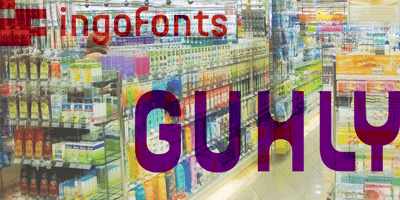
Guhly
Guhly font
Guhly Font Family was designed by Ingo Zimmermann and published by Ingo. Guhly contains 6 styles and family package options. A modern Sans Serif — prosaic, designed geometrically, beautiful in large sizesAll the dimensions of the font are based on Factor 10. The general principle of construction leads to slim forms and nearly equally wide characters. So the font appears very solid but is actually difficult to decipher in longer texts.Along with the ”normal“ Guhly Regular there are also the two versions Guhly Light and Guhly Bold, whereas in each only the vertical strokes [Guhly Light] or horizontal [Guhly Bold] have been changed in strength. The result is a very individual decorative effect which slightly reflects old circus and western scripts.The lower case characters in the version Guhly Book are, therefore, optimized to be suitable for longer texts in smaller font sizes — because after all, sometimes you should read a bit more than just the headline…The design of a shampoo bottle stands behind the creation of this sans serif display font. Prominent, clearly constructed forms with circular arcs define its appearance. This is a font primarily designed for use with capital letters — for all sorts of advertising purposes, headlines and titles.But lower case letters also belong to a good functional font; so, of course, Guhly includes them and ligatures for the more ”critical“ letter combinations as well as stylistic alternates for the letters K (or k), V (v) and o.As a decorative “encore”, the Guhly family also contains the “normal” weight in two variants:on the one hand the Guhly Cutout – these are letters without counter, as if the letters were cut out and the internal surfaces fell out; and on the other hand the Guhly stencil – as the name suggests, a stencil font with the typical bars that give a stencil the necessary cohesion.